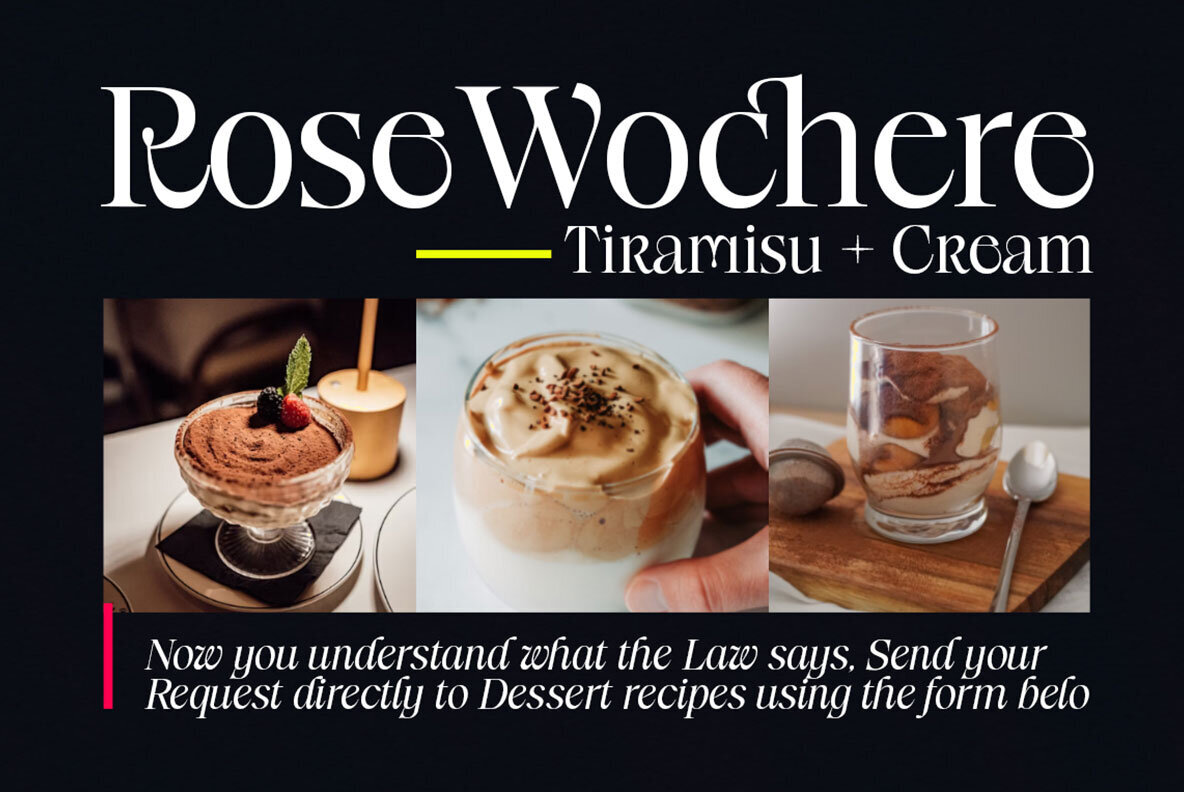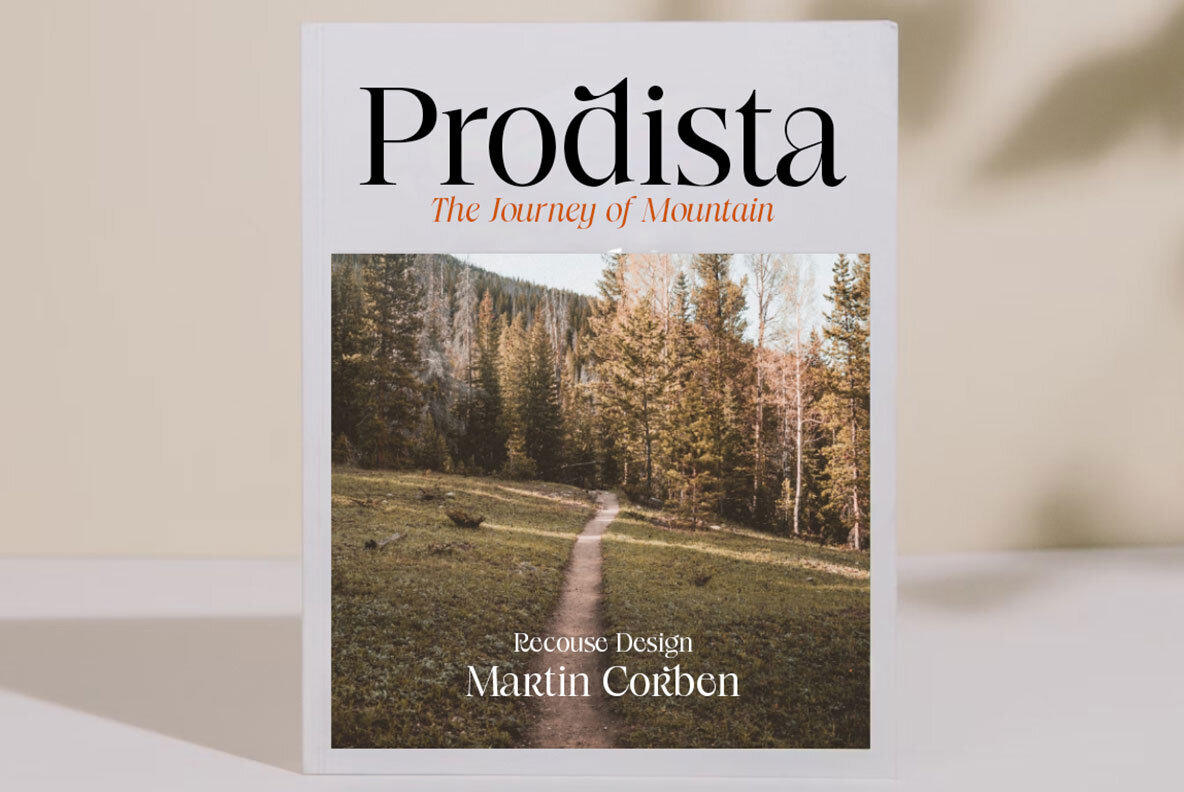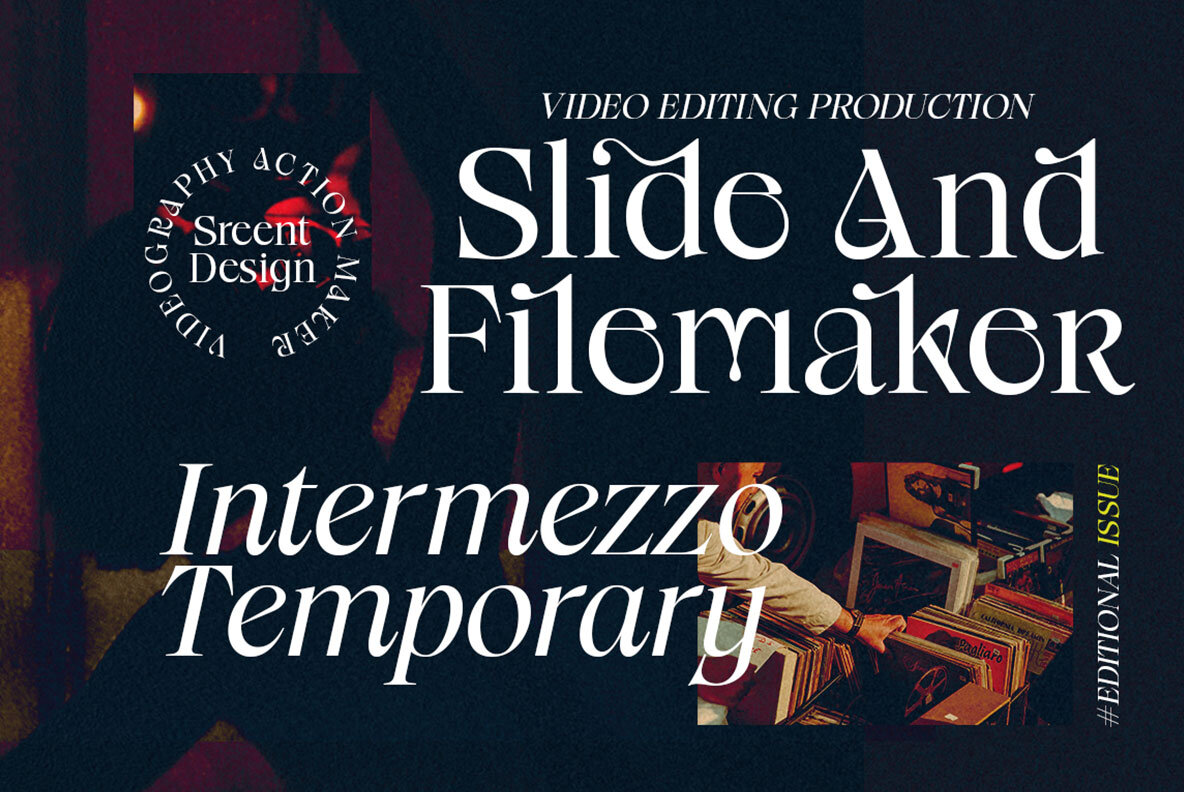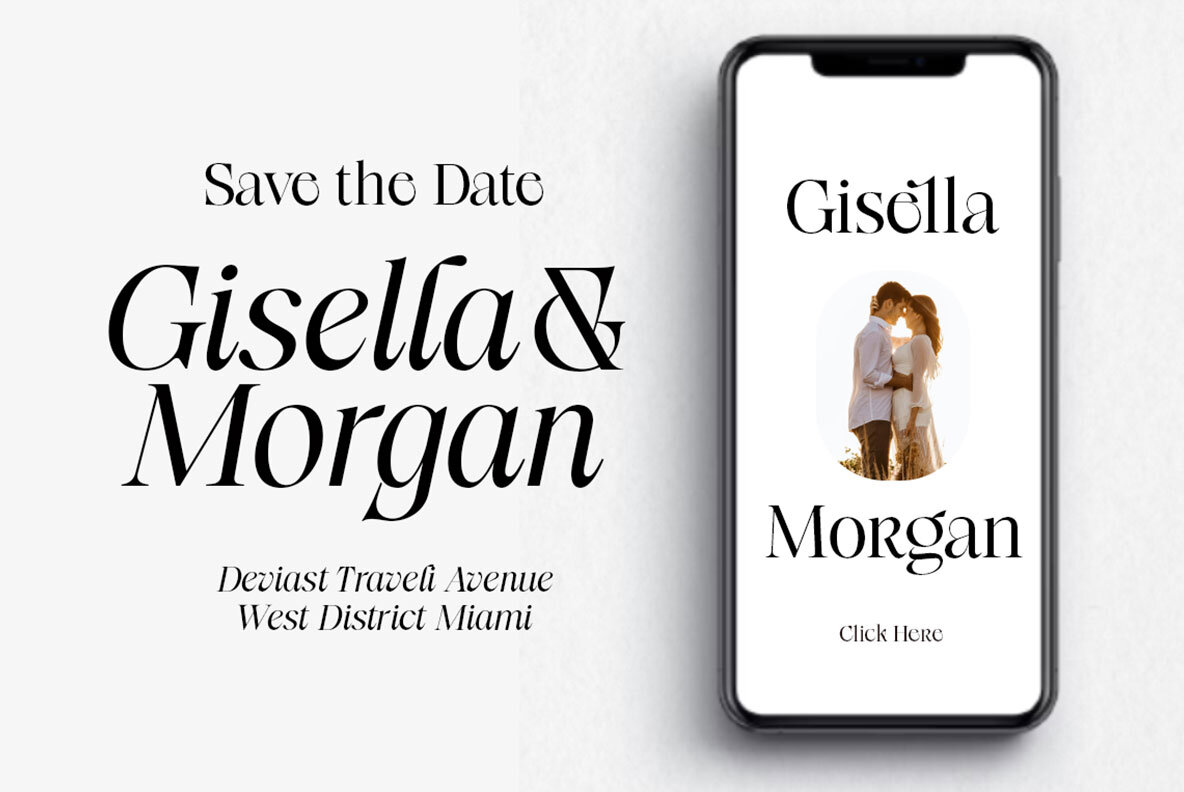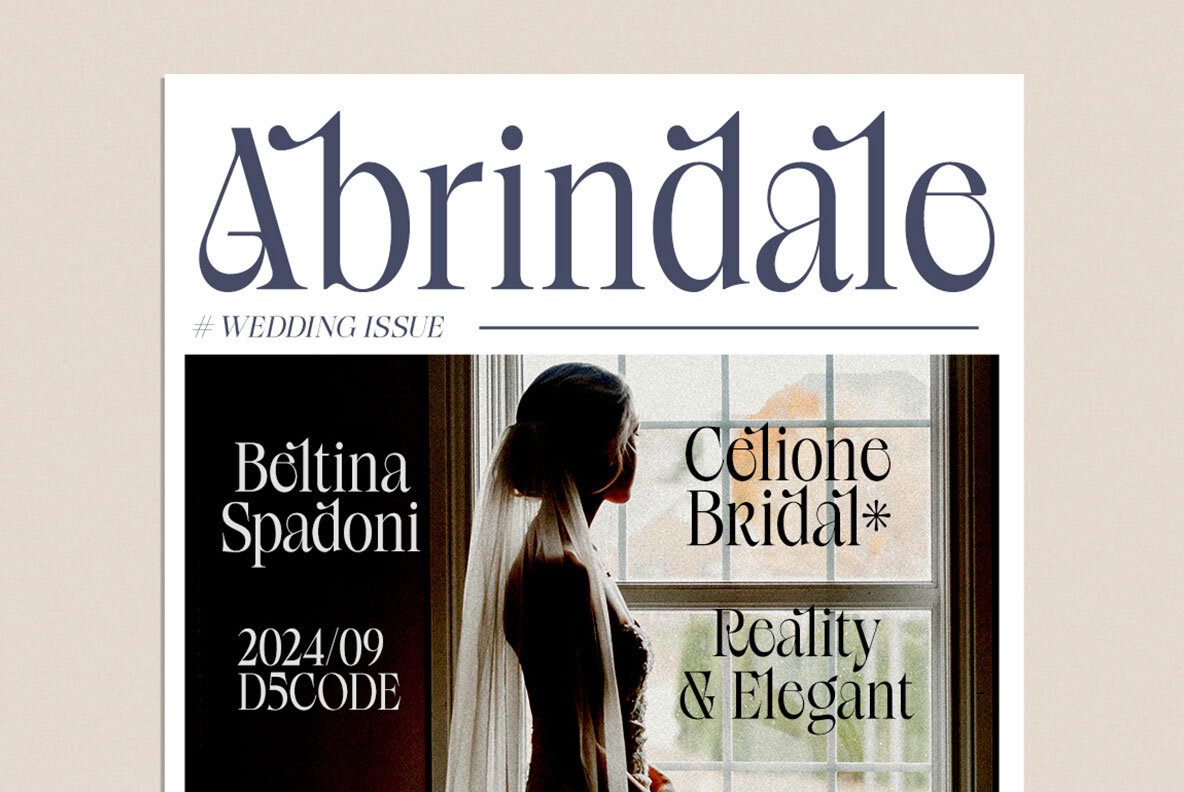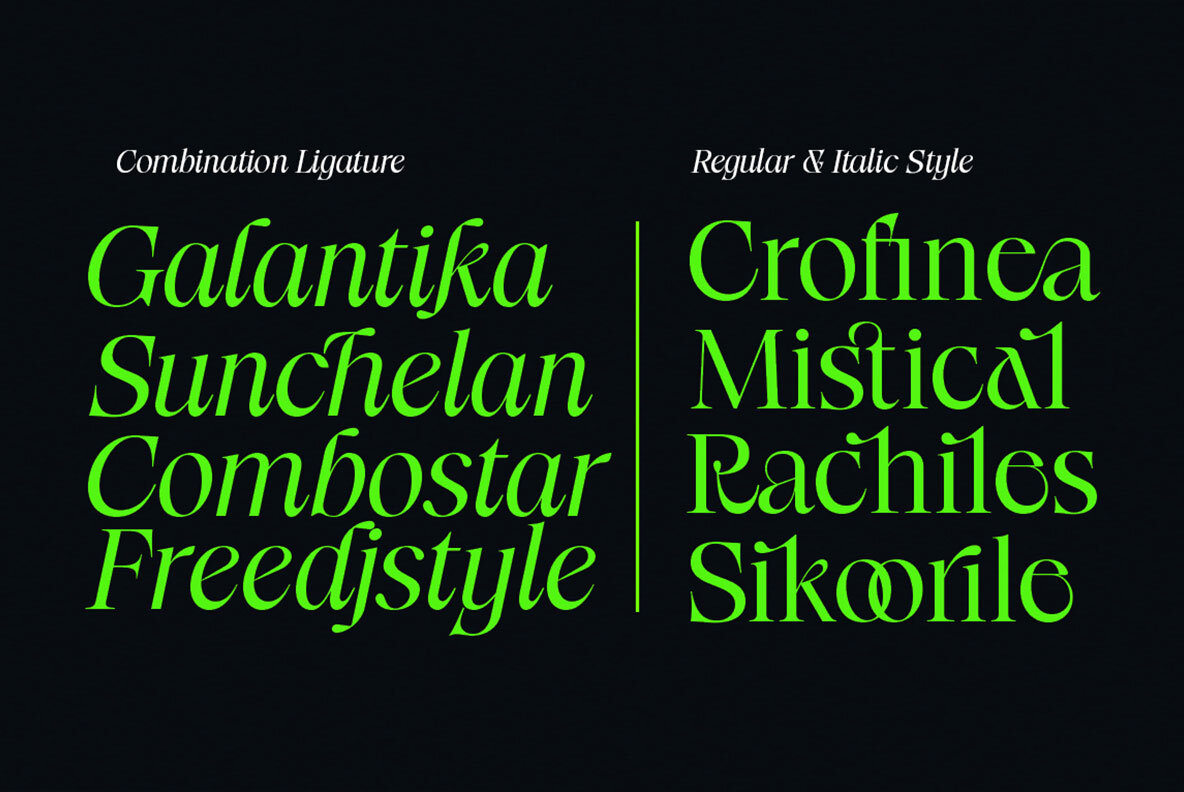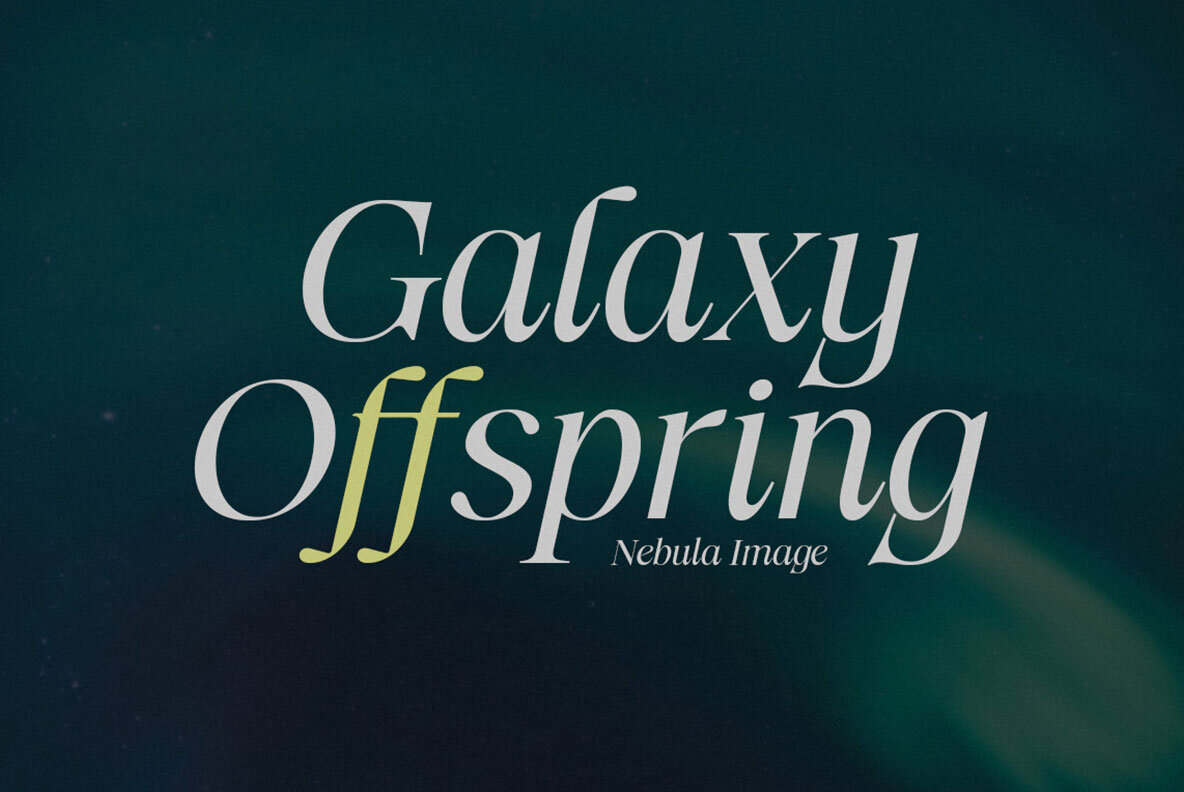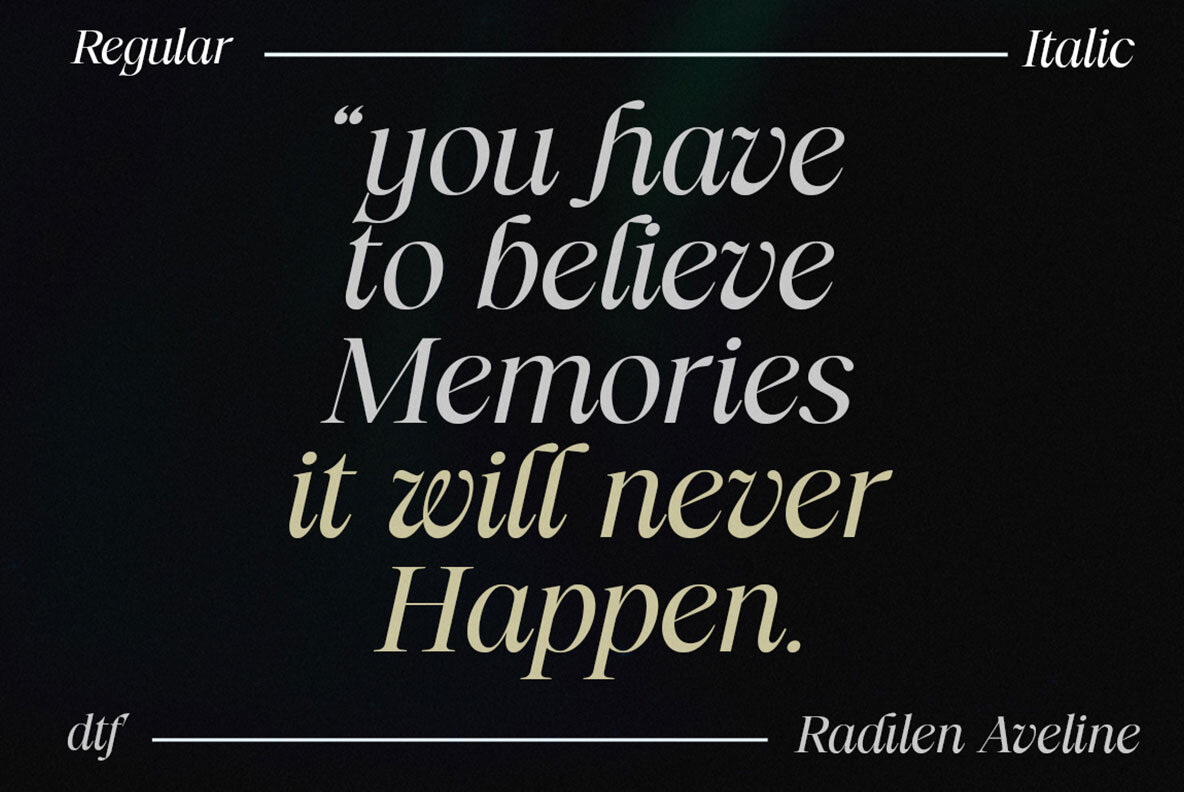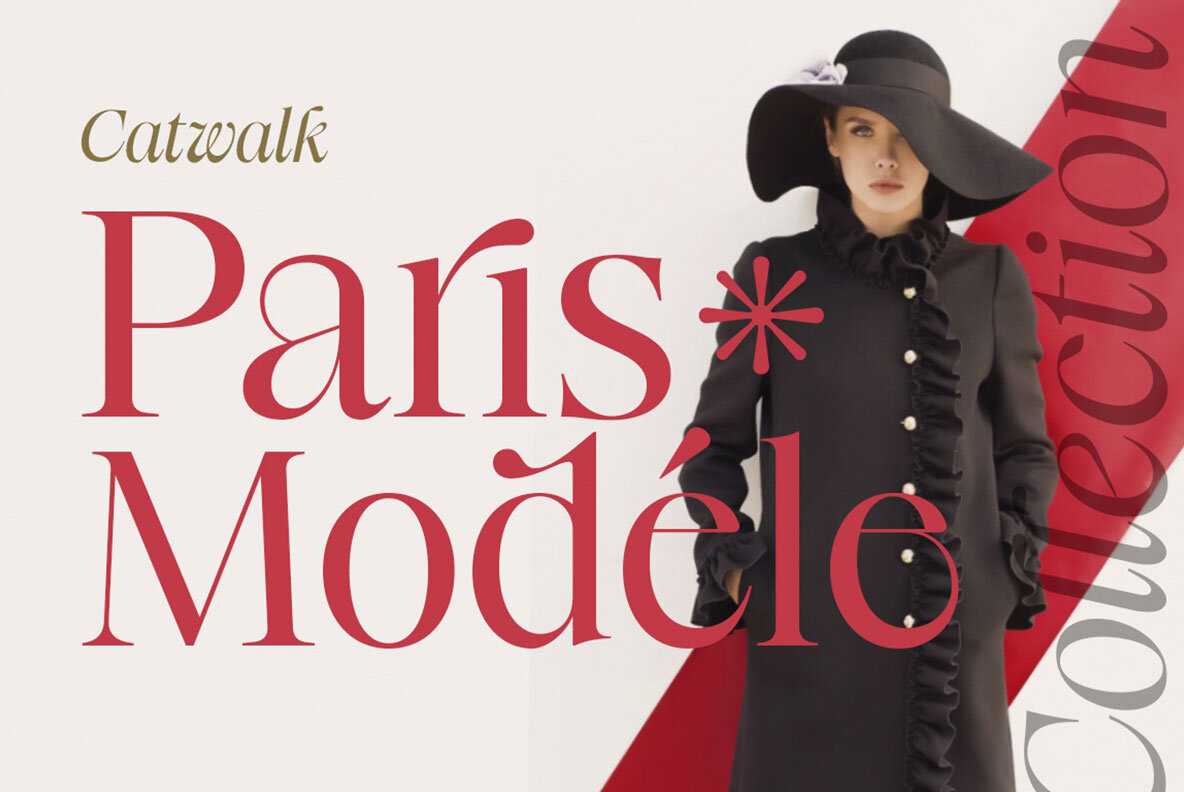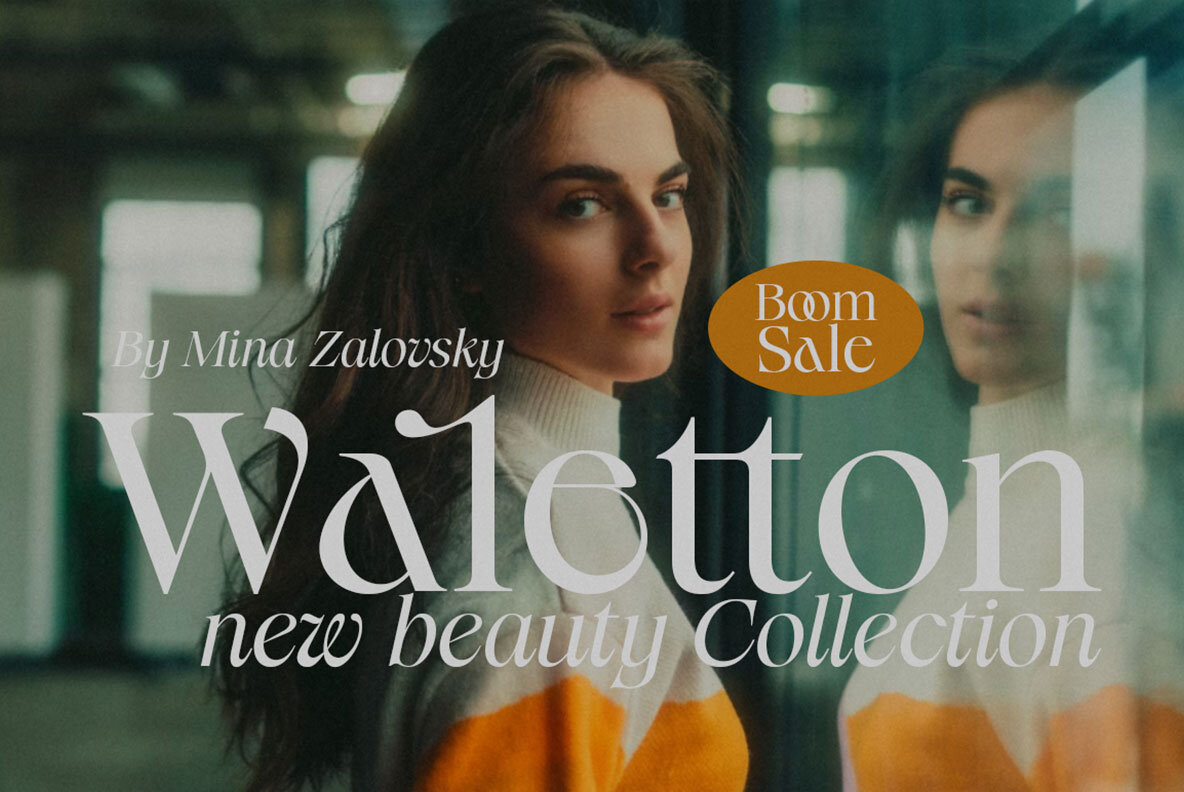
Radilen Aveline Font
Radilen Aveline is a collection of elegant serif fonts crafted to infuse modern aesthetics into traditional design elements. With clean lines, smooth curves, and sharp details, this font series is perfect for a wide array of design projects. Whether used for titles, headlines, editorial designs, monograms, branding, logos, or posters, Radilen Aveline provides versatility and sophistication. To fully utilize Radilen Aveline's OpenType features and access all Glyp variations, we recommend using design software that supports these features, such as Adobe applications and CorelDRAW.Radilen Aveline: Versatile Serif with Elegant Italics